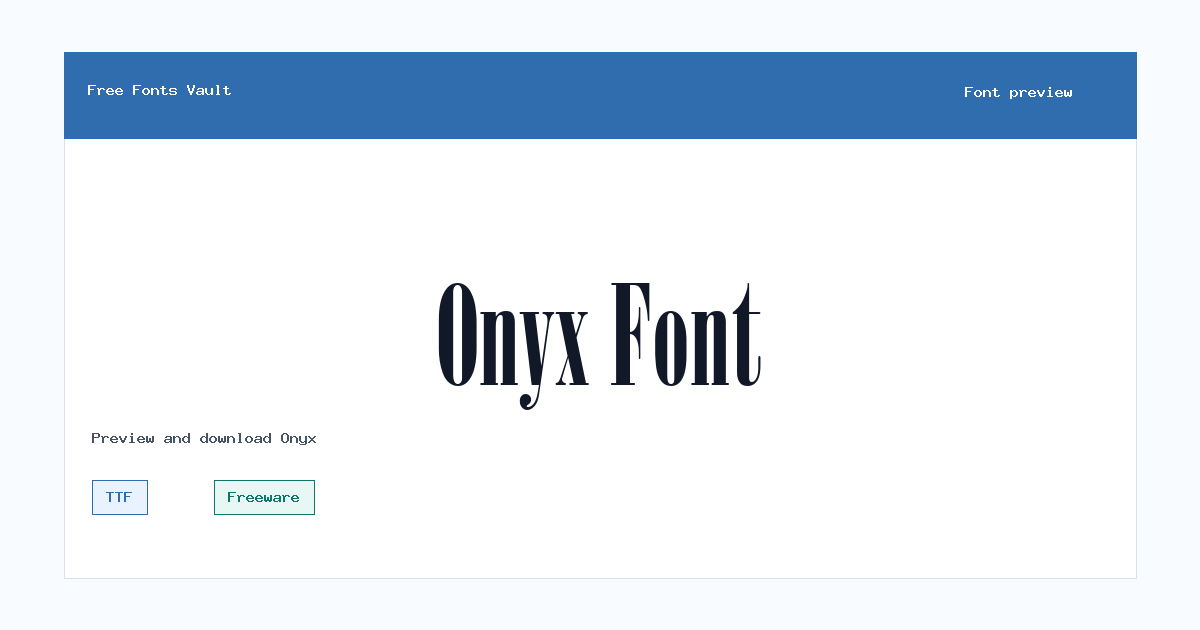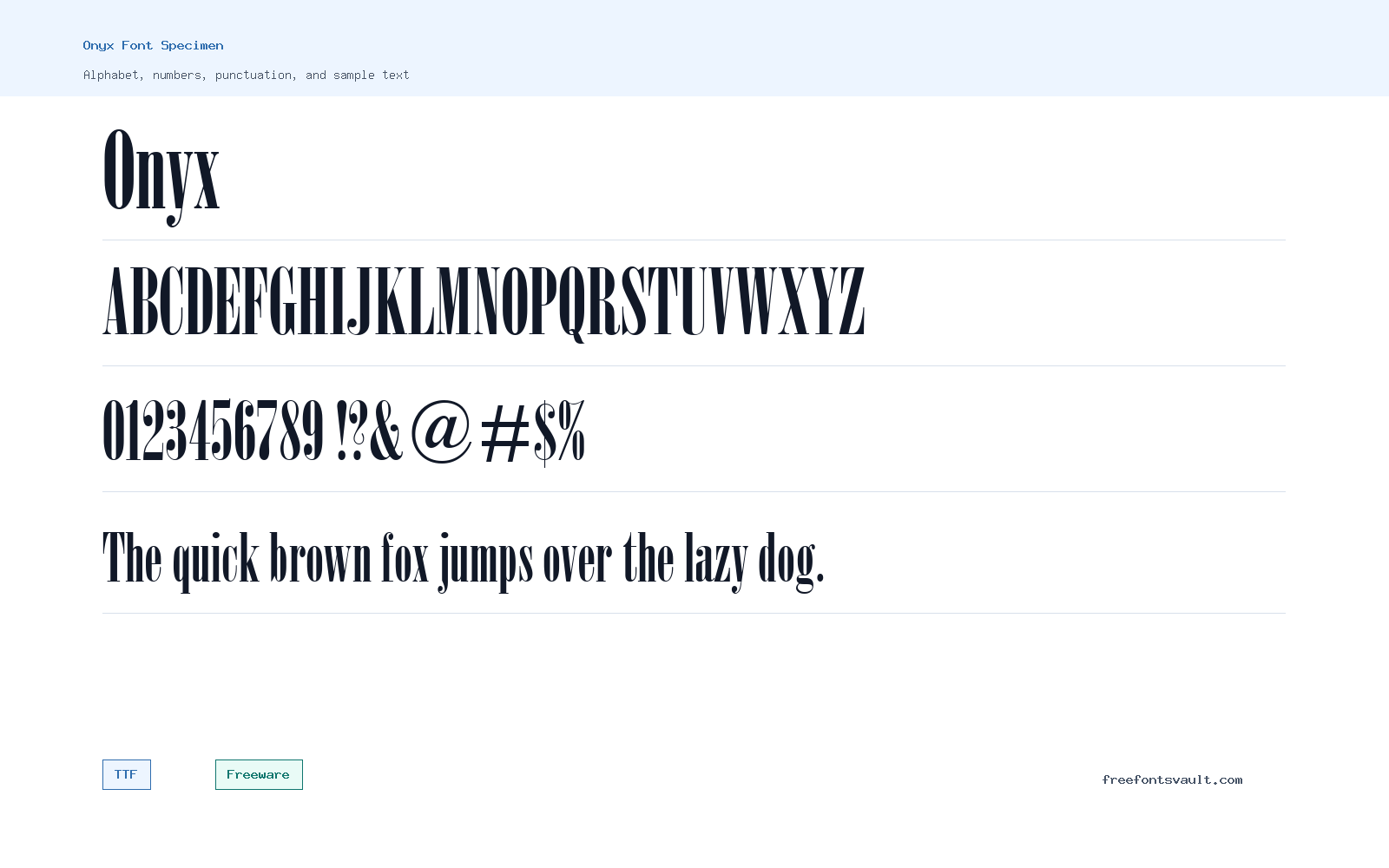
Onyx
Onyx font.
Onyx is a regular TrueType font for short display tests, headings, and simple layout previews where one upright style is enough.
About Onyx Font
Onyx is listed as a normal 400-weight TTF font with one regular style. That makes it straightforward to preview, install, and test, but it also means you should not expect a full family with matching bold, italic, or light weights from this page. Use the preview field with the exact wording you plan to design before deciding whether it fits.
The font is most useful for short text: headings, labels, title cards, small poster lines, name treatments, and rough branding mockups. Try uppercase, lowercase, punctuation, numbers, and a sentence-length sample. A single regular style can work well for a clean display line, but longer body copy needs extra checking at the actual size you plan to use.
- Best for short display text rather than long paragraph typography
- Useful for checking headings, labels, title lines, and mockups
- Short headings, labels, and title treatments
- Personal mockups, posters, and social graphics
- Testing display typography before choosing a final font
- Name styling, simple logo experiments, and preview samples
- Layouts where one regular upright style is enough
What kind of font is Onyx?
Onyx is listed as a regular TrueType font with normal style and 400 weight. It is best tested for short display text and simple layout previews.
Does Onyx include multiple styles?
Only one regular style is listed for this page. If you need bold, italic, or lighter weights, use a companion font.